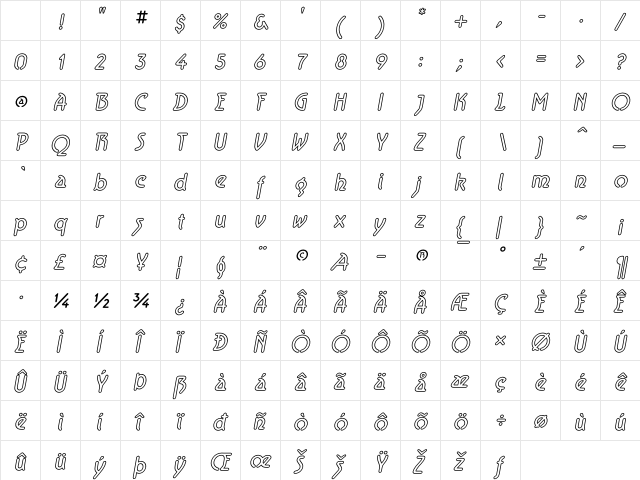
Aerolite Sky Italic Regular
Foundry: Jan Paul, ￿IGMA FONTS
Designer: Jan Paul
Design Context for Aerolite Sky Italic
Aerolite Sky Italic is a composed and adaptable typeface that performs quietly and consistently across a wide range of design contexts. The slanted form adds forward momentum and visual energy.
Pro Tip: Use Aerolite Sky Italic for emphasis, pull quotes, and subheadings where its slanted energy can add rhythm to the layout.